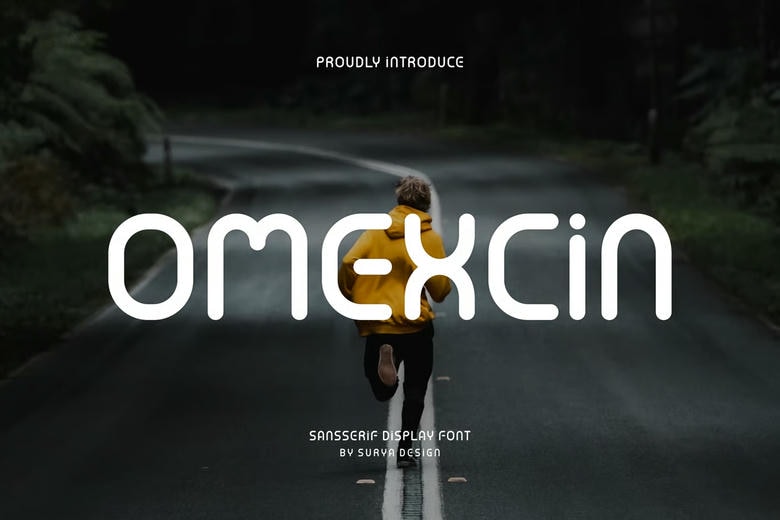
Omexcin Font
Omexcin Font– Modern Font is a bold and authentic display font. The font is suitable for any branding project like logo, t-shirt printing, esport, and many more. outstanding in a wide range of contexts.
Omexcin Display Font